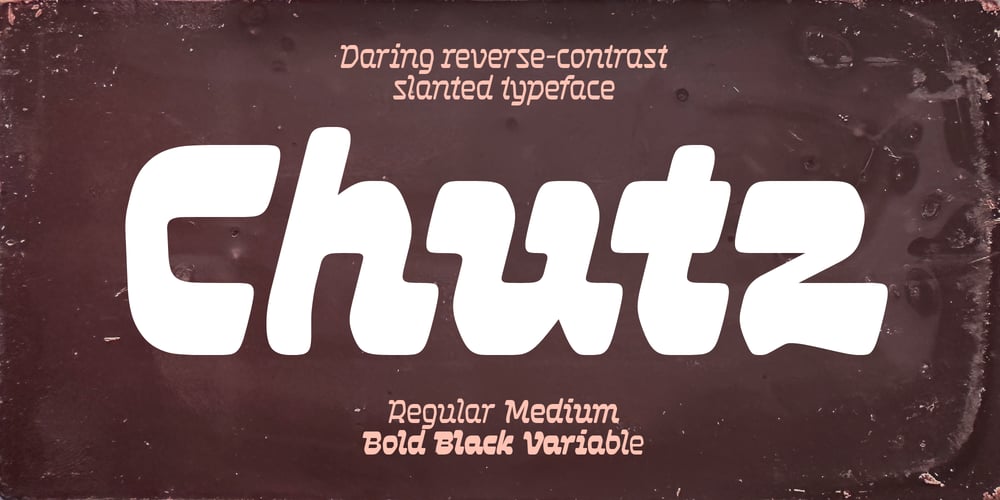
Chutz Font Family was designed by Michael Rafailyk and published by Michael Rafailyk. Chutz contains 5 styles and family package options. Chutz is an audacious slanted typeface with horizontal contrast and horizontally oriented strokes developed for Jewish brand Chutzpah of the Feisty Foods company based in Brooklyn, New York.Scripts: Latin, Greek, Cyrillic, Georgian, Hebrew, ArabicLanguages: 500+Hinting: Manual PostScript hinting for static fonts. Variable font is unhinted.The promo images used photos of Ola Rafailyk, and photos of Marta Dzedyshko, Josh Sorenson from Pexels.